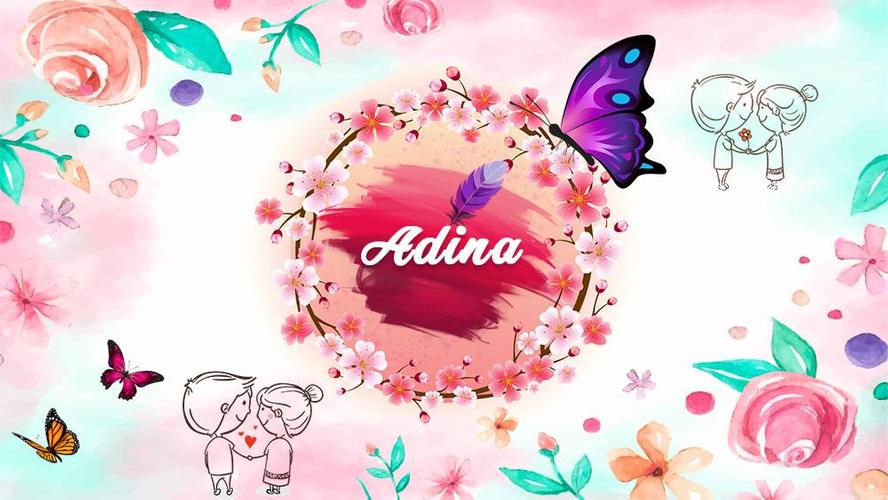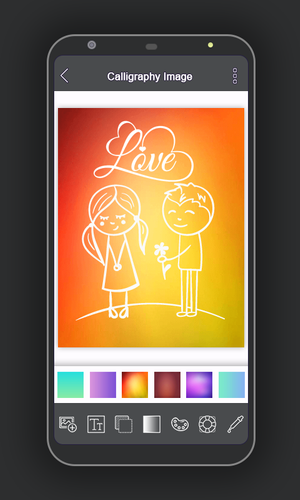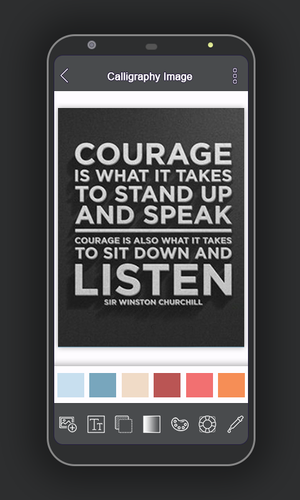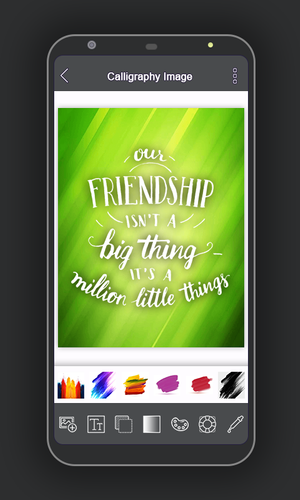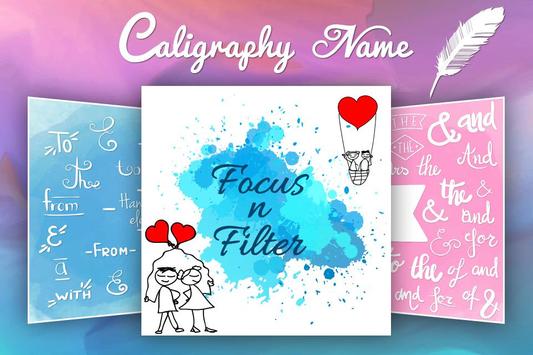
Calligraphy font name art apk download. Calligraphy font styles for you this is the special calligraphy font styles. Calligraphy text app for android is a collection of best flip font for your device to write your name. Calligraphy name app provides 100 calligraphy font style to write your name on different background and gradients. The word calligraphy is derived from greek meaning beautiful writingcalligraphy or the art of fancy writing has thousands of years in its history and development.
You can use calligraphy classic font to generate text designs based on your selection of colors sizes using calligraphy fonts in seconds. Calligraphy name app becomes worlds first play store app getting 5 million downloads. Create stylish names with calligraphy name. Download calligraphy name art maker calligraphy font app apk for android focus n filter application also provide symbol to decorate your calligraphy name.
Calligraphy art focus n filter name art is packed with sketches art and other editing tools to make your name extra special. Calligraphy font also provide lots of symbol to decorate your calligraphy name to make calligraphy font name art profile dp using this application make name art symbol.